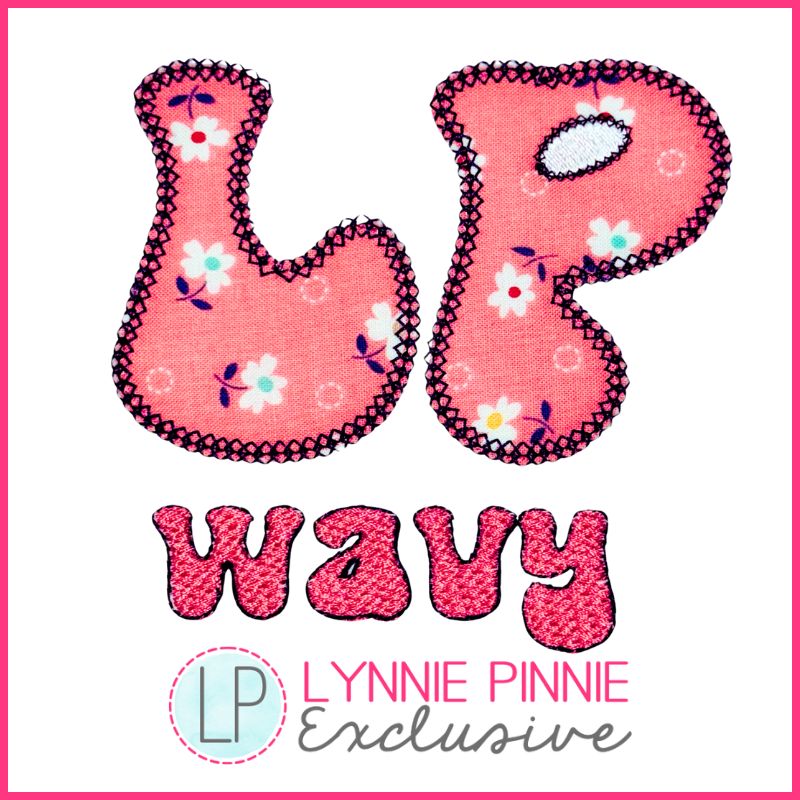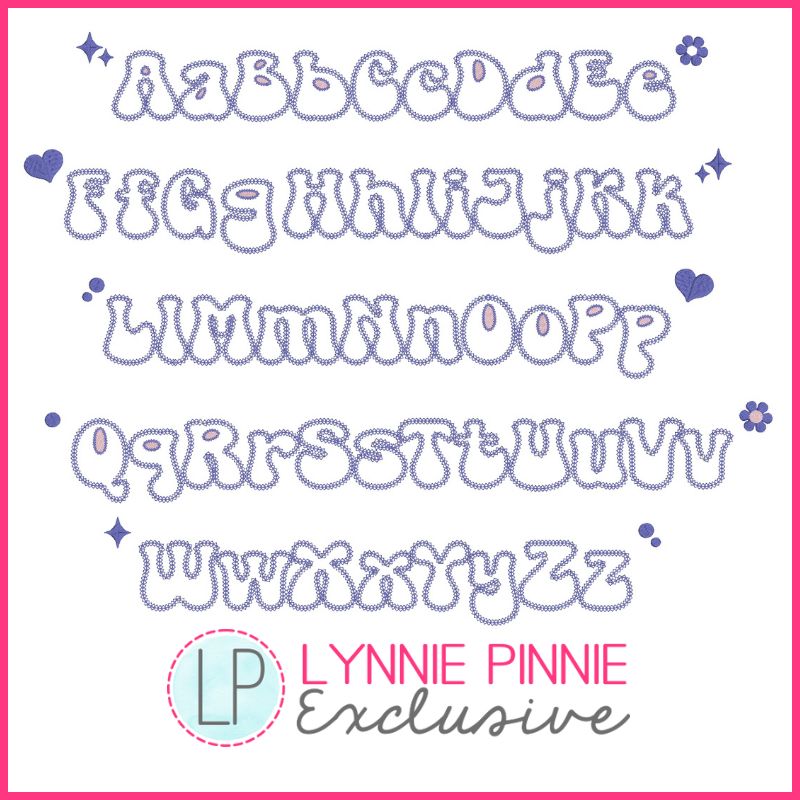
Wavy Vintage Stitch Applique Font Font DIGITAL Embroidery Machine File -- 5 sizes + Native BX Embroidery Font Scalable
The vintage style diamond applique border looks amazing in both a contrasting or coordinating thread color!
Yes!  The hearts, stars, and fun doodles are included.